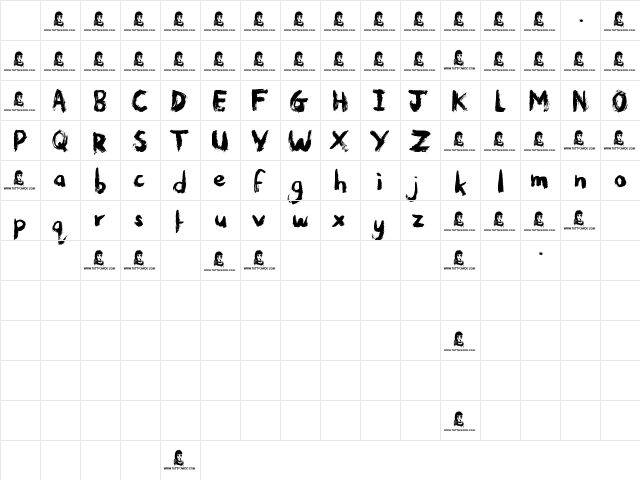
Complete Messy Artist Regular glyph index. Displaying only characters natively supported by Messy Artist Regular font.
Messy Artist is a composed and adaptable typeface that performs quietly and consistently across a wide range of design contexts.